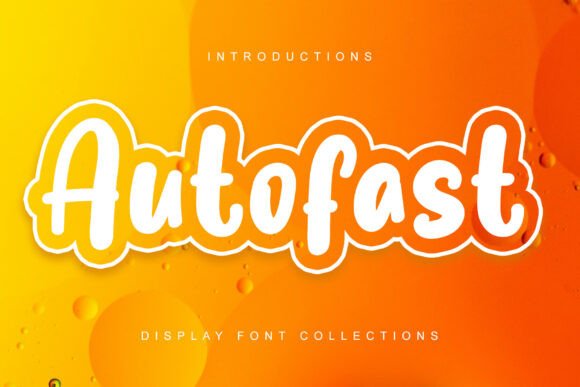
The Joy of Autofast Font: A Designer’s New Best Friend
I still remember the time I was working on a children’s book project, and I just couldn’t find the right font to match the playful and cheerful vibe of the illustrations. The client wanted something fun, quirky, and engaging, but everything I tried seemed either too boring or too over-the-top. That’s when I stumbled upon the Autofast font, and it was love at first sight! ✨
An Honest Review of Autofast Font
• ✨ The fun and quirky personality of Autofast makes it perfect for children’s themed designs, and it pairs amazingly well with bright colors!
• ✅ The font is PUA encoded, which means you can easily access all the amazing glyphs and ligatures without any hassle.
• 🎉 Autofast is a display font that adds a touch of playfulness to any design, making it ideal for headings, titles, and promotional materials.
While Autofast is an amazing font, there are a few things to keep in mind: 🤔
• ⚠️ As a display font, Autofast might not be the best choice for body text or long paragraphs, as it can be a bit too playful and hard to read.
• ⚠️ Some of the glyphs and ligatures might not work well in all design software or platforms, so it’s essential to test them before finalizing your design.
The Backstory of Autofast Font
Autofast was designed by a team of creatives who wanted to create a font that would bring joy and playfulness to designs. Inspired by the world of children’s books and toys, Autofast is a font that’s meant to make you smile. With its quirky personality and extensive range of glyphs and ligatures, Autofast is the perfect choice for designers who want to add a touch of fun and whimsy to their work.
Q: What is PUA encoding, and how does it work?
PUA (Private Use Area) encoding is a way of encoding fonts that allows designers to access a wide range of glyphs and ligatures. In the case of Autofast, PUA encoding means that you can easily access all the amazing glyphs and ligatures without any hassle.
Q: Is Autofast suitable for body text?
While Autofast is an amazing font, it’s primarily designed for display purposes and might not be the best choice for body text or long paragraphs. For body text, you might want to choose a font that’s more legible and easier to read.